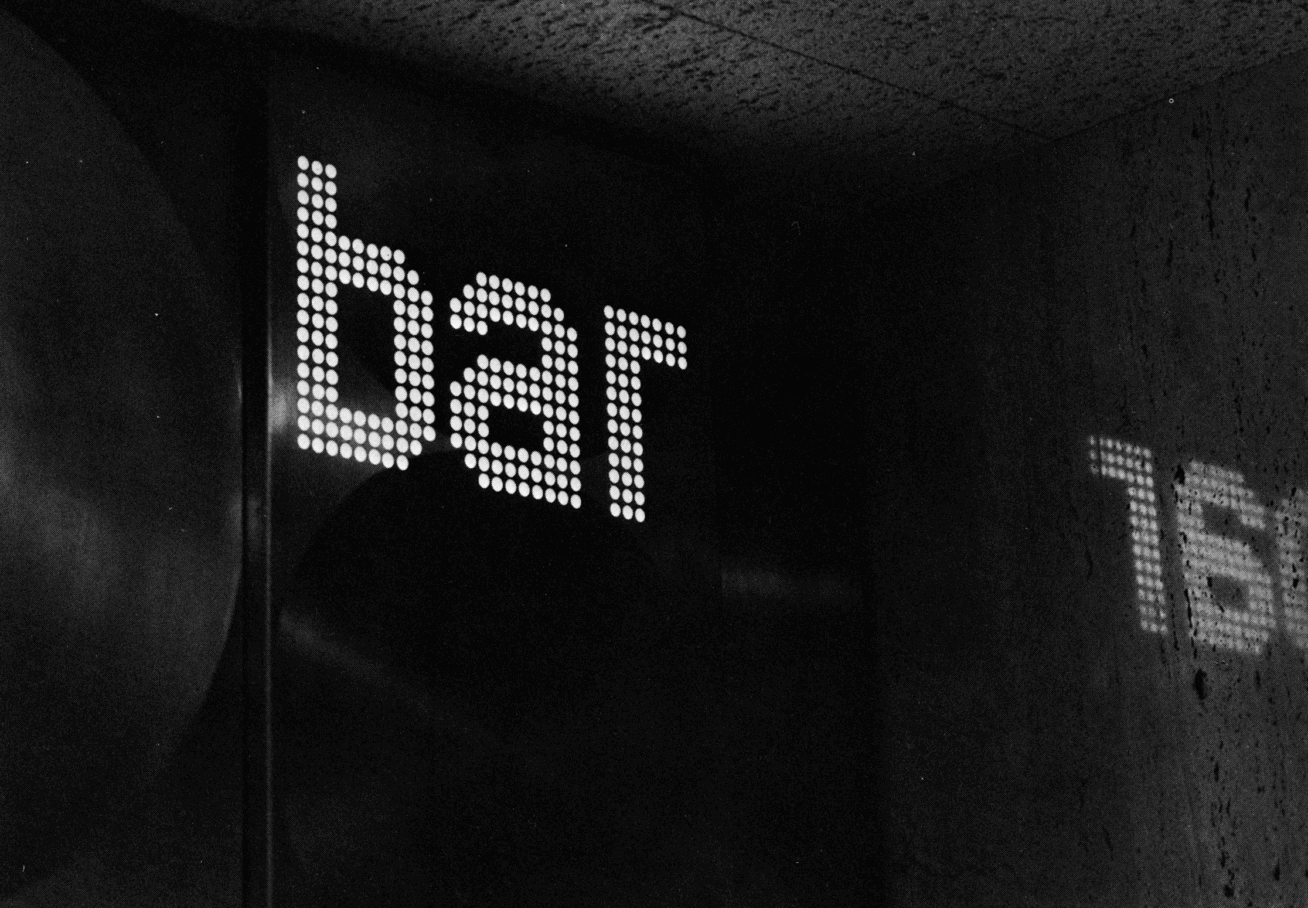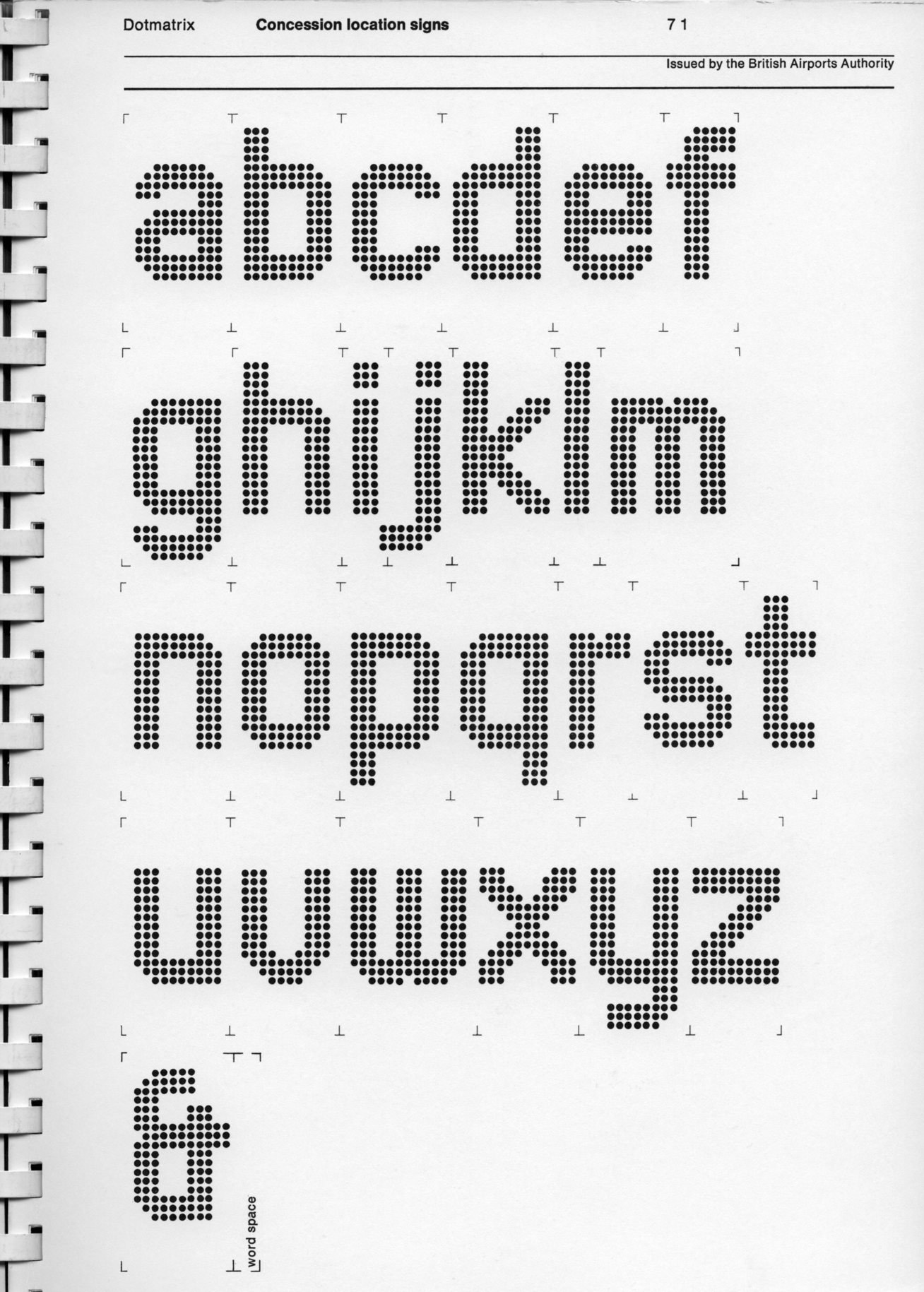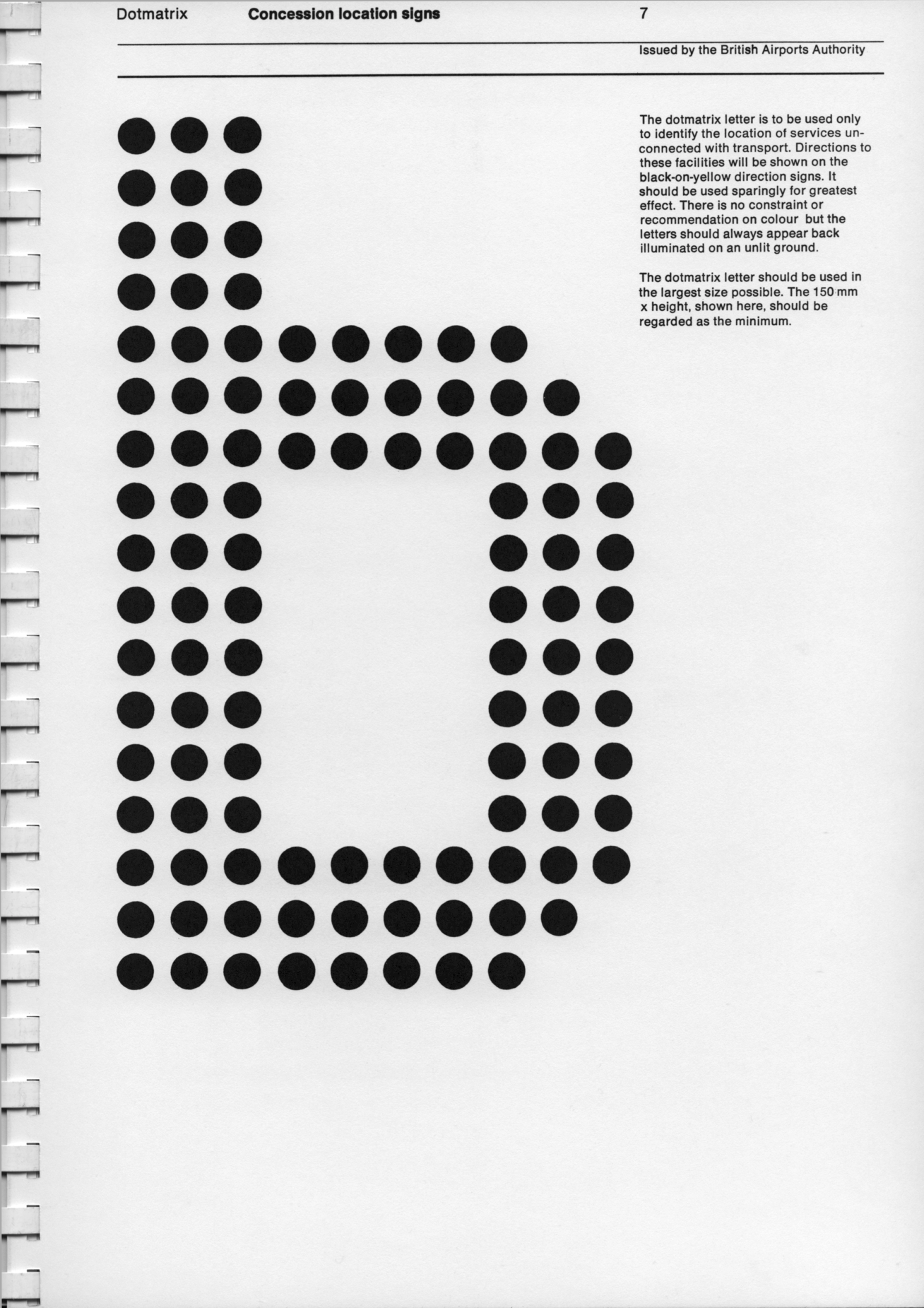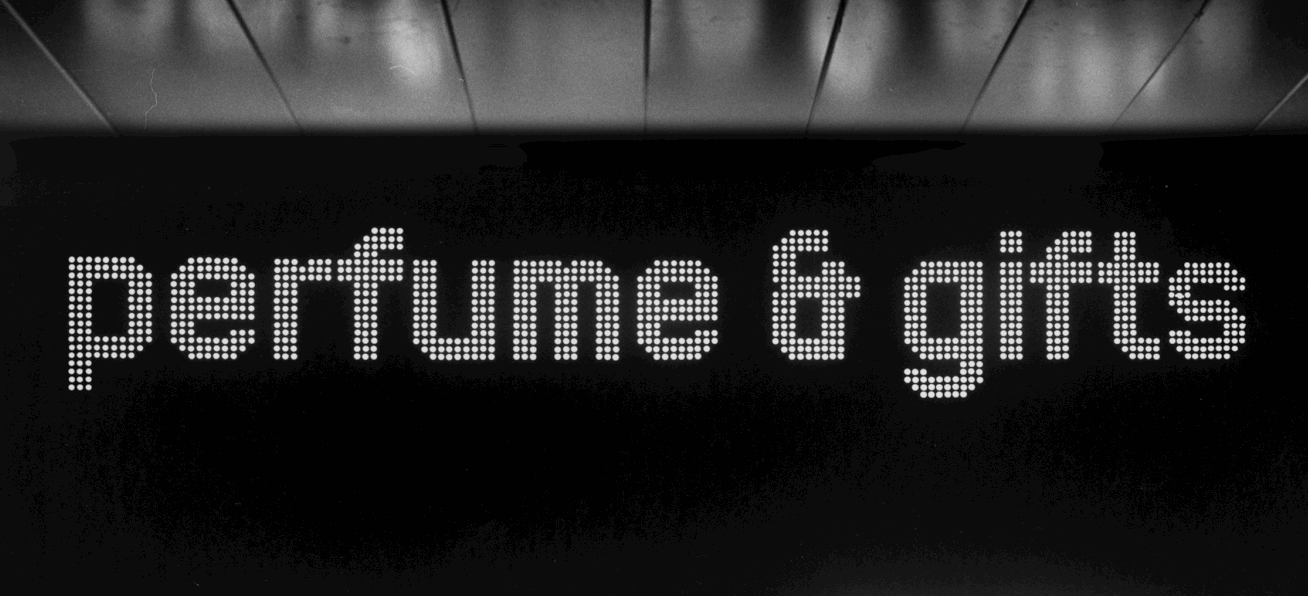
Originally designed by Margaret Calvert / Kinneir, Calvert, Tuhill Ltd. c. 1970 for the British Airports Authority, specifically for internally illuminated shop fascia signs, as distinct from the direction signs at Gatwick Airport. New Airport Dot is a revival of the original lettering, previously available as lowercase letters only and in a single weight, now available with capitals, lowercase, numerals (lining & non-lining), and punctuation across 5 distinct weights.
| Designer: | Margaret Calvert, Scott Williams, Henrik Kubel |